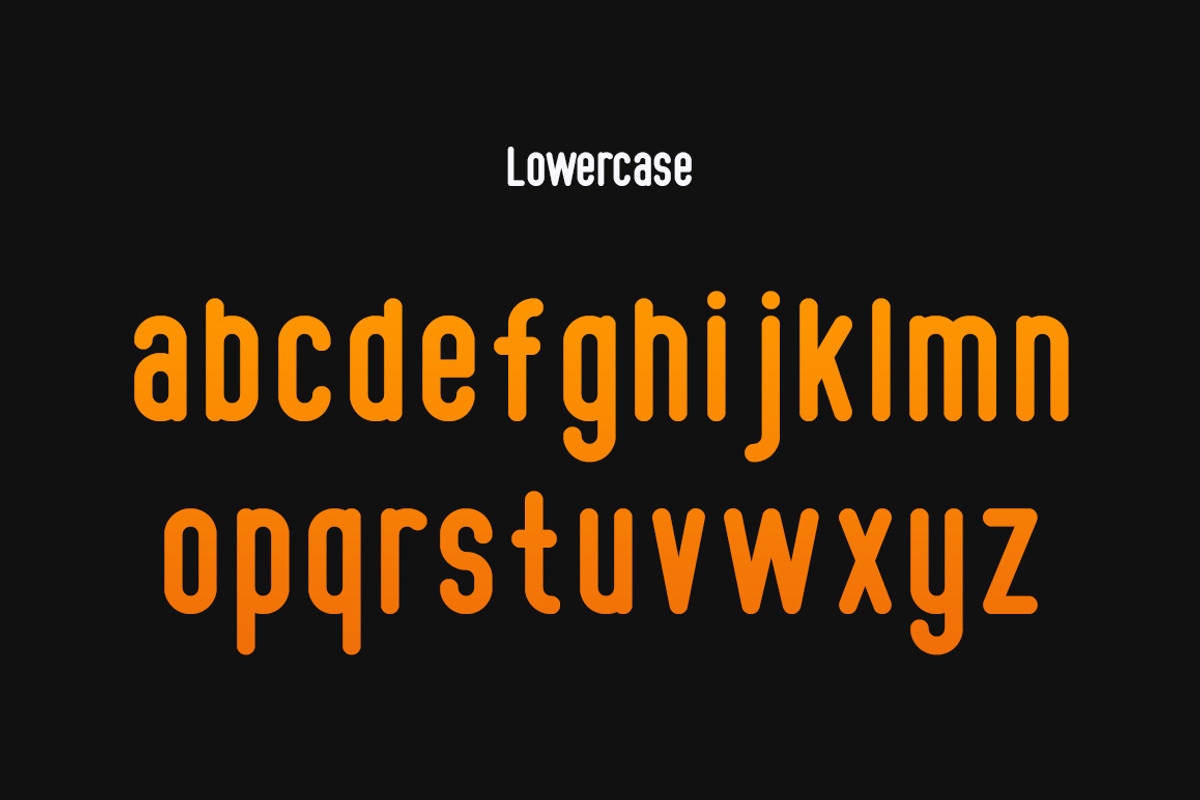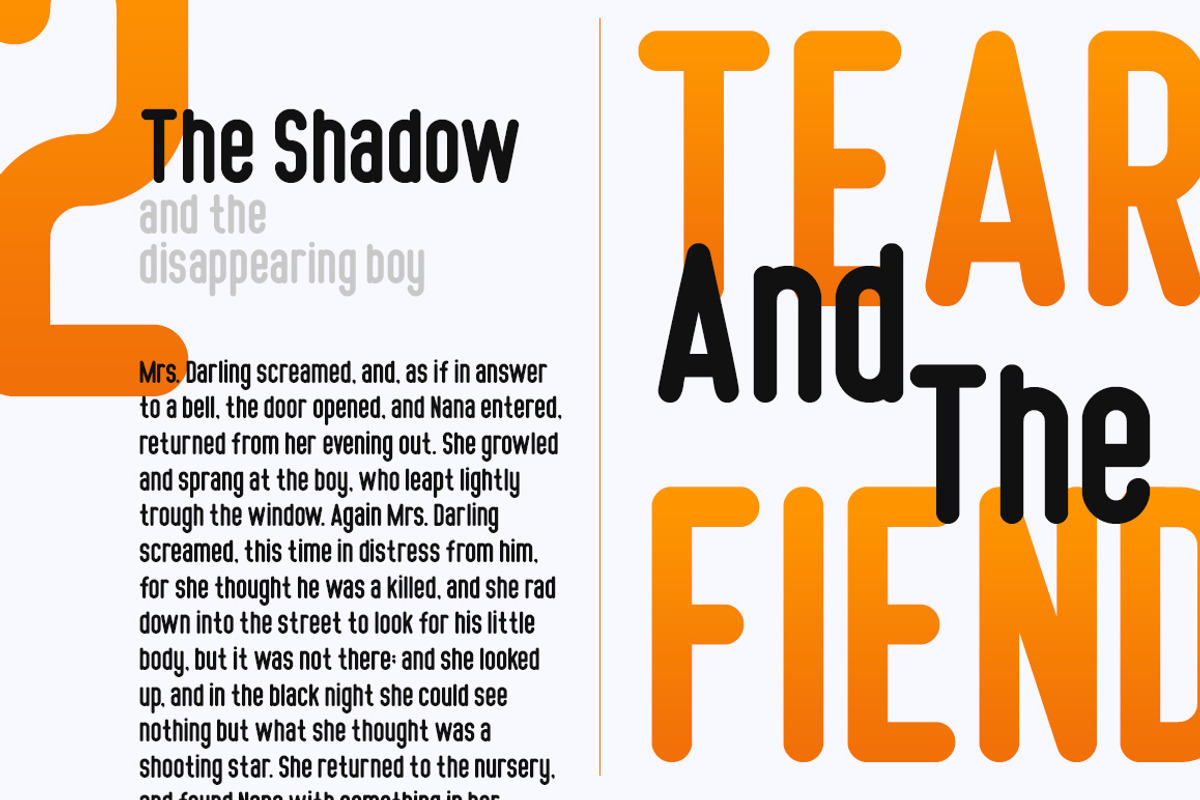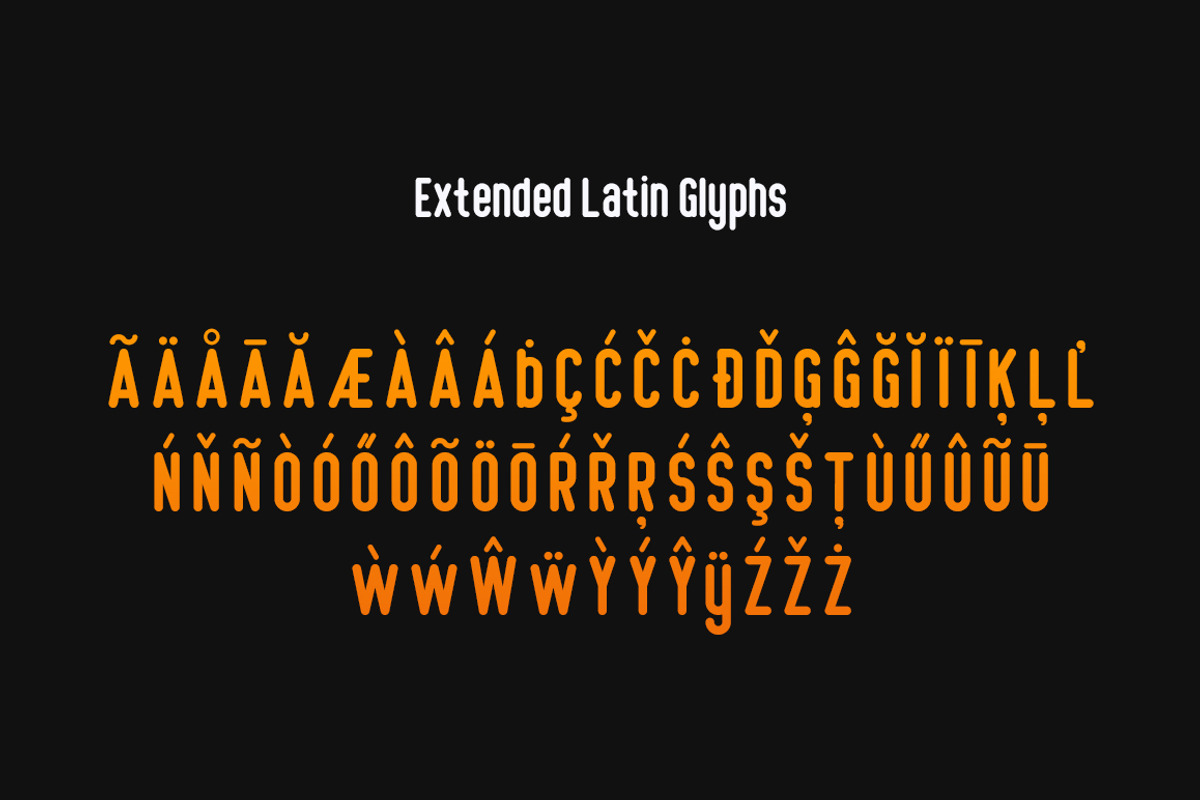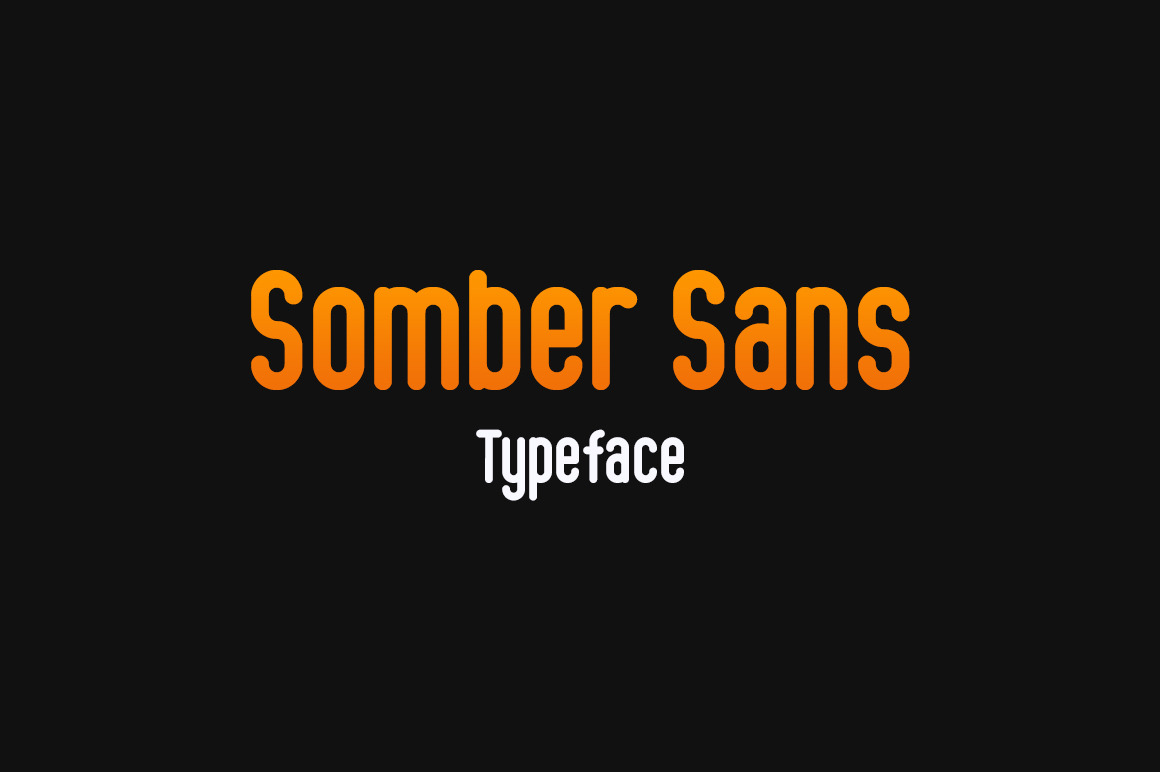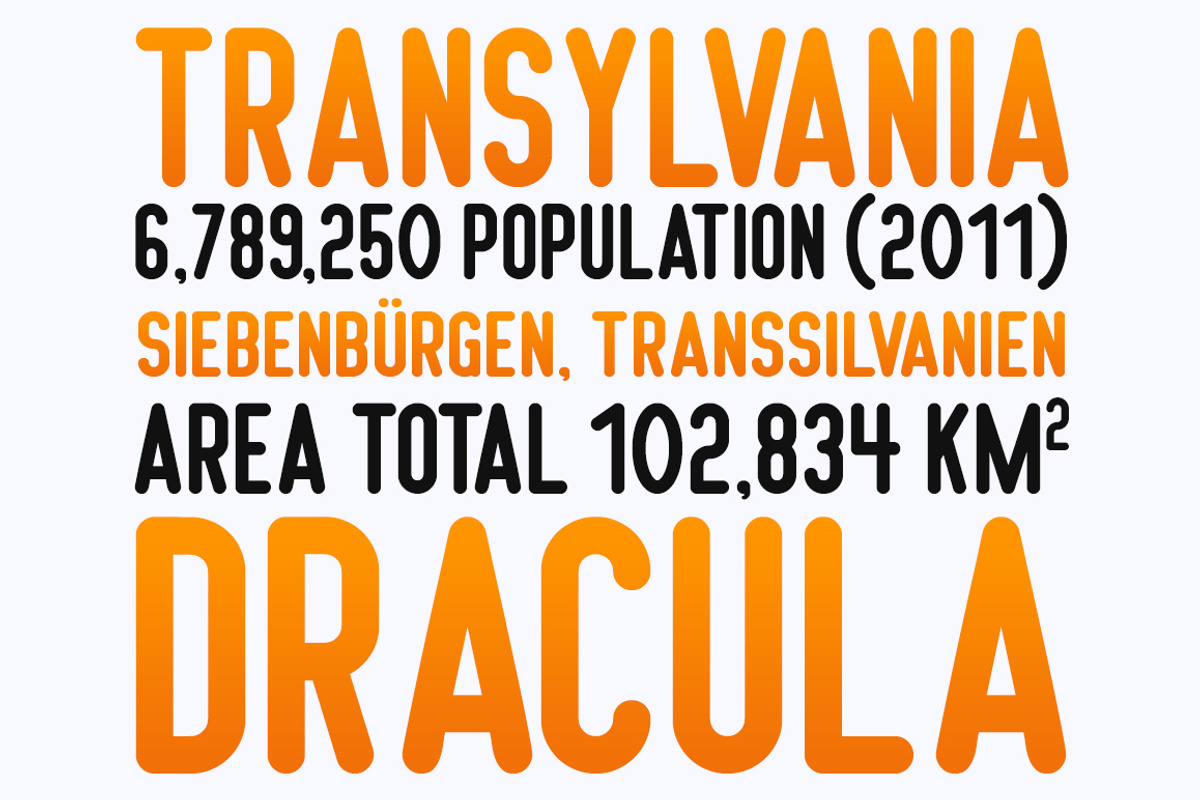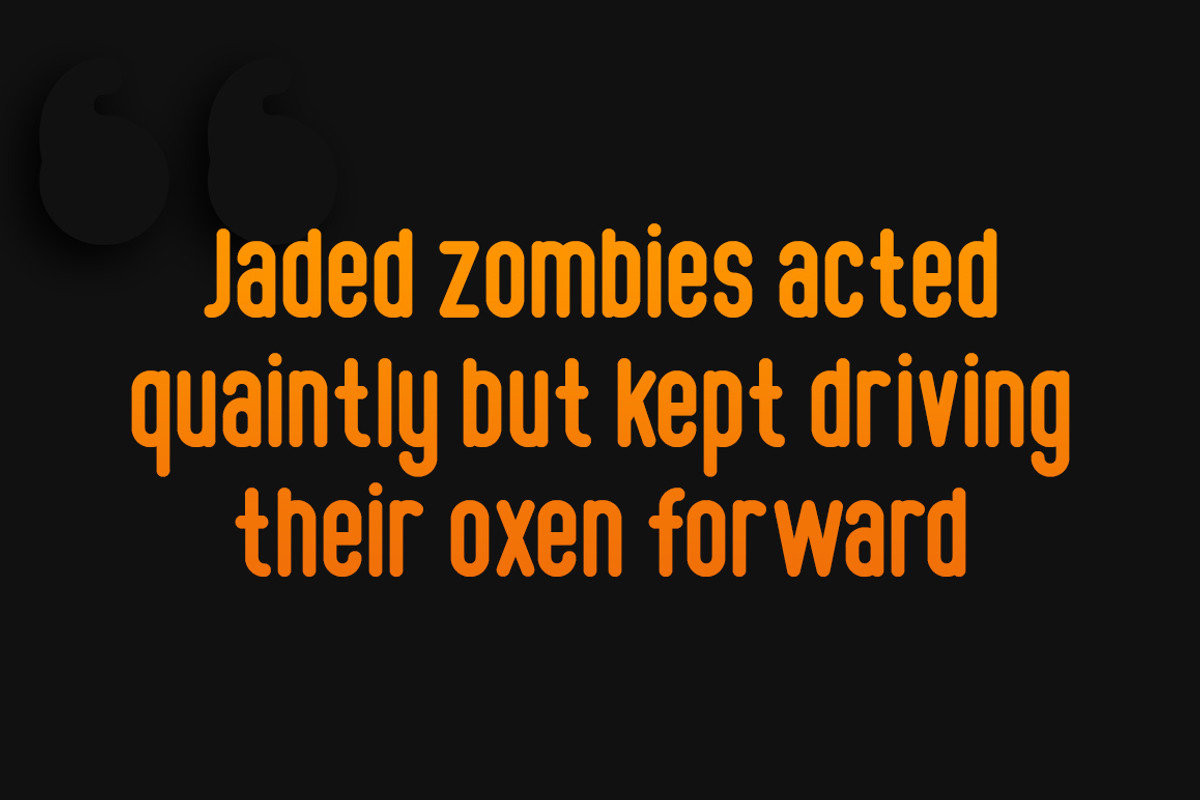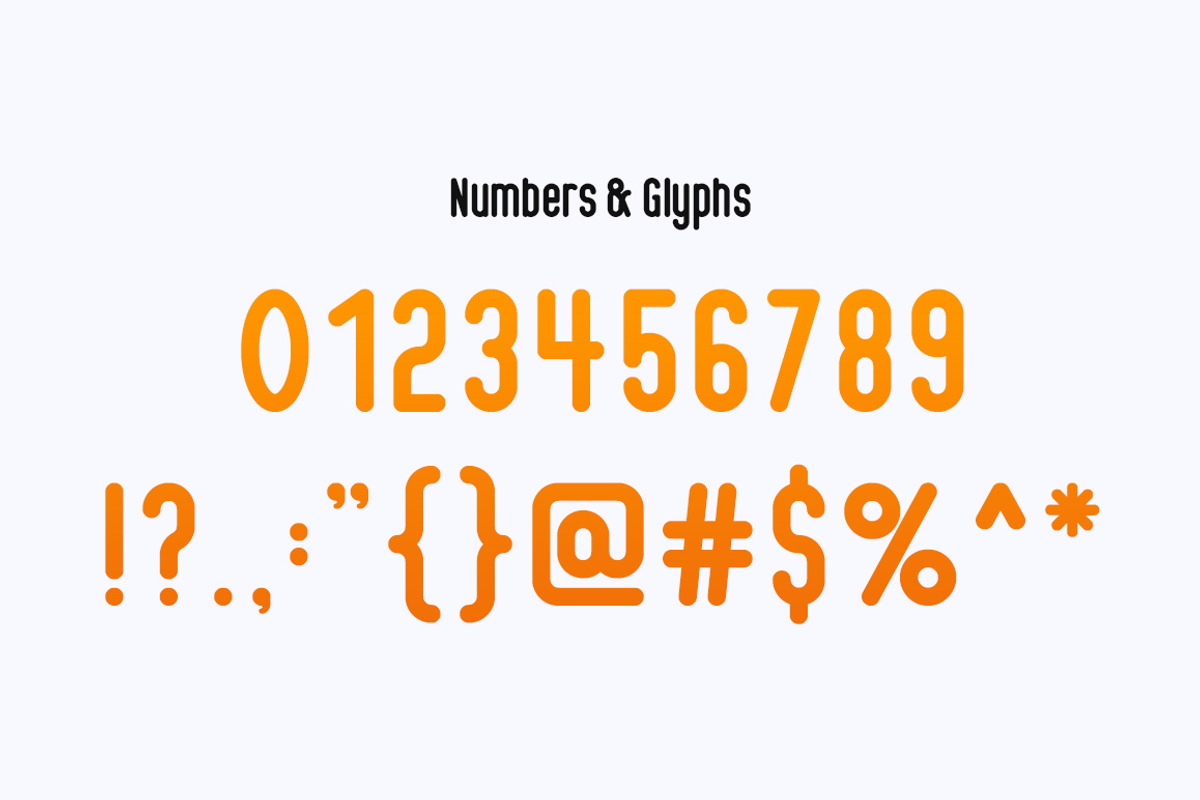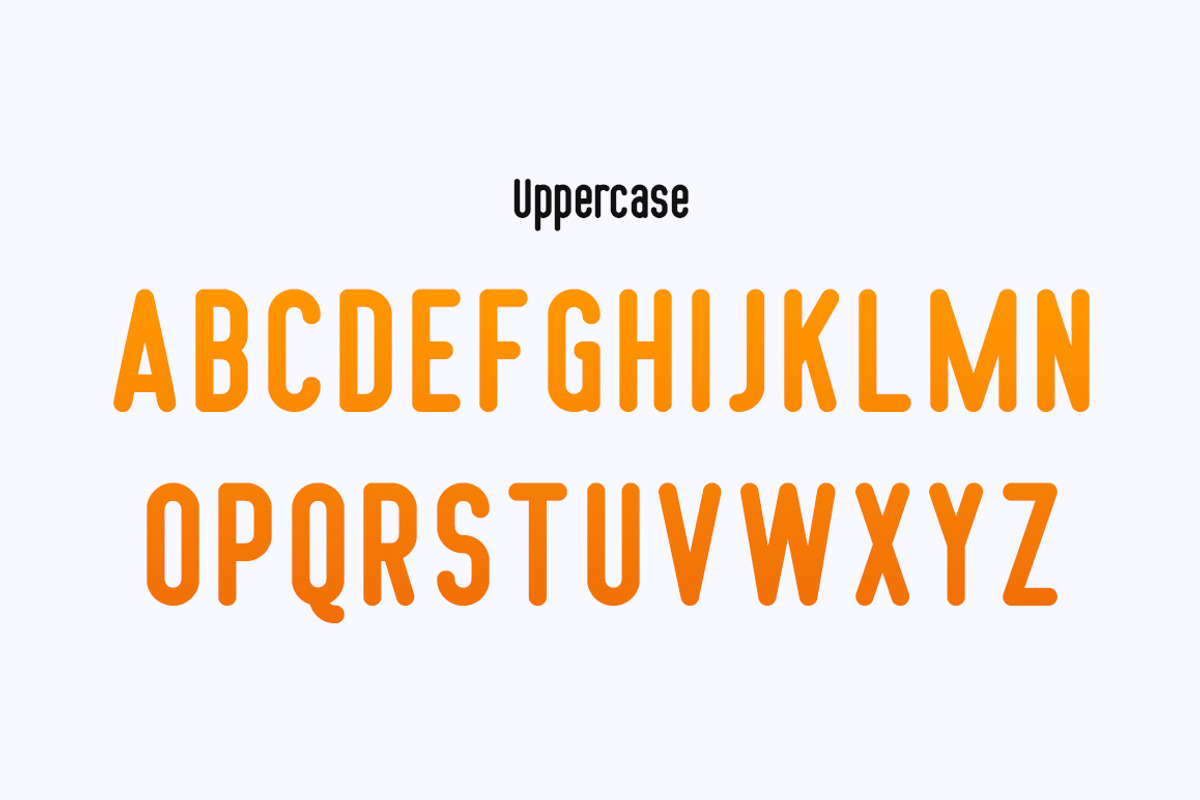
Somber Sans Typeface
Somber Sans is robust, tall and round sans serif typeface perfect for posters, headlines, flyers and everything big! It comes with over 400 characters and multilingual support with languages ranging from Latin, Russian Central European and more.